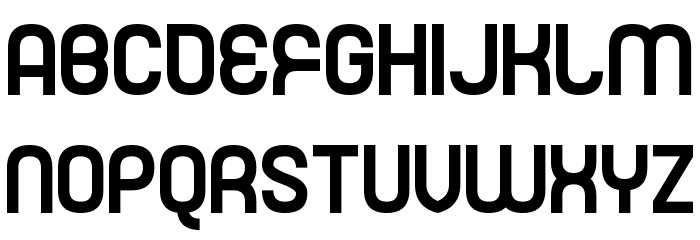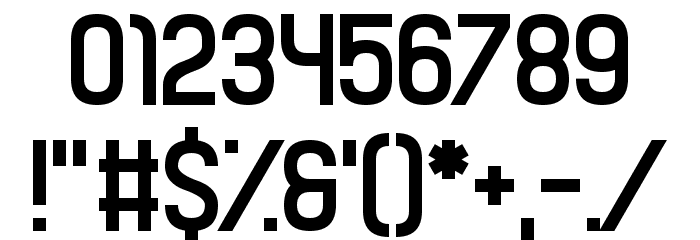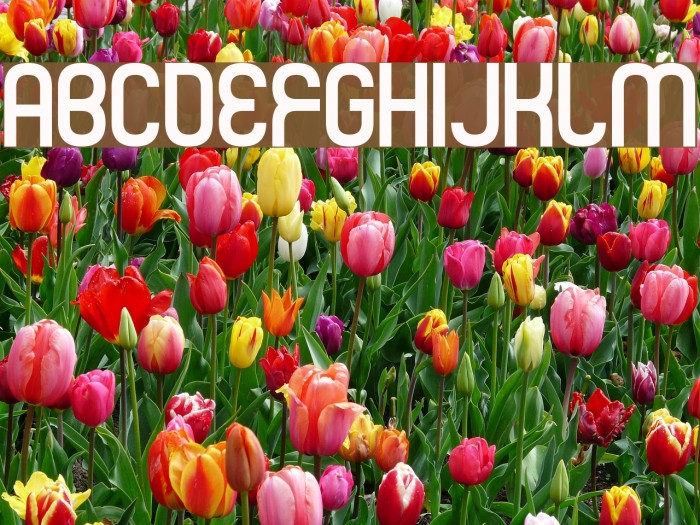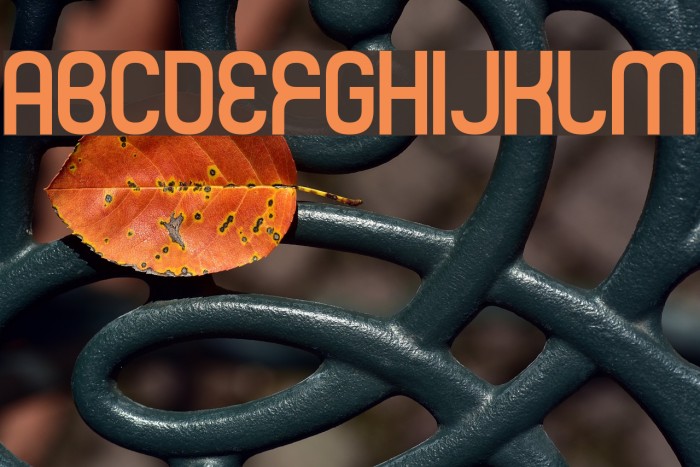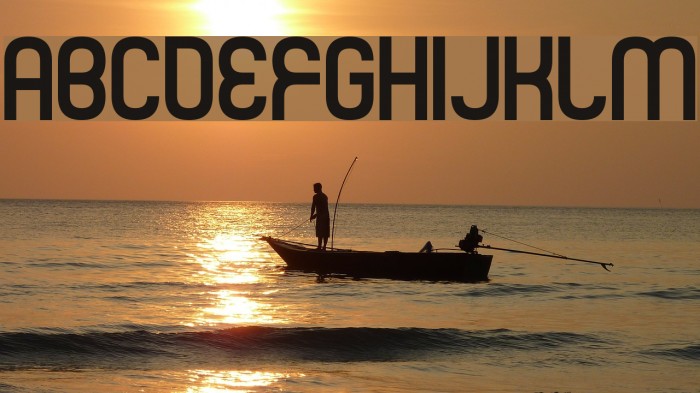
Mister Fisher Font
This font features a bold, geometric design with rounded edges, giving it a modern and approachable appearance. The uppercase and lowercase letters maintain a consistent style, with uniform stroke widths that contribute to its clean and structured look. The numerals are equally bold and clear, ensuring readability. Special characters are designed to match the overall aesthetic, making them seamlessly integrate with the rest of the typeface. The font's design is versatile, suitable for various applications where a contemporary and friendly feel is desired.
A bold, geometric font with rounded edges and a modern style.
- Proposed Projects: Ideal for branding, advertising, posters, and digital media where a modern and approachable look is needed.